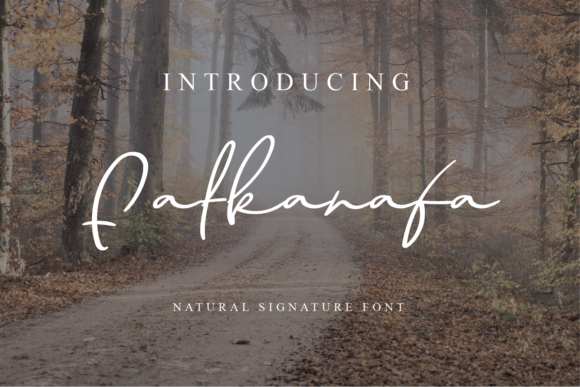
Welcome to the world of Fatkarafa, a script font that exudes elegance and charm. With its graceful curves and delicate flourishes, Fatkarafa dances across your screen, leaving a trail of beauty in its wake. Inspired by the art of calligraphy, this font encapsulates the essence of handwritten artistry, bringing a touch of sophistication and personality to your digital creations.
Embrace the power of Fatkarafa to transform your designs into visual masterpieces. Effortlessly craft eye-catching logos that demand attention and leave a lasting impression. Design branding that radiates uniqueness and captures the essence of your brand's identity. Create quotes that ignite emotions and resonate with your audience. With Fatkarafa, your words become art, leaving an indelible mark on hearts and minds.
Unleash your creativity and let Fatkarafa take you on an artistic journey. Its versatility knows no bounds, adapting seamlessly to a wide range of projects. Whether you're designing wedding invitations, social media posts, or crafting beautiful presentations, Fatkarafa is your perfect companion. Experience the joy of effortless design as you watch your ideas come to life, imbued with the magic of Fatkarafa's enchanting touch.
Step into a world of elegance and grace with Fatkarafa. Let your designs blossom with creativity and captivate your audience with every stroke of this exquisite font. Elevate your artistic expression and discover the true power of typography with Fatkarafa, the font that sparks imagination and sets your designs apart.